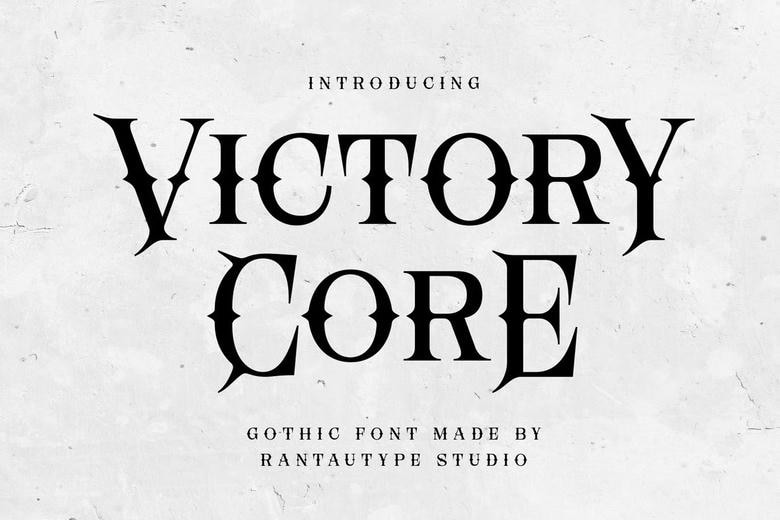
Victory Core Font
Victory Core is a display font with a dramatic, mysterious, and rock-inspired style. It works well for all kinds of creative projects, including logos, headlines, covers, branding, magazines, social media posts, ads, quotes, packaging, labels, photography, watermarks, special events, and more.
Victory Core Display Font